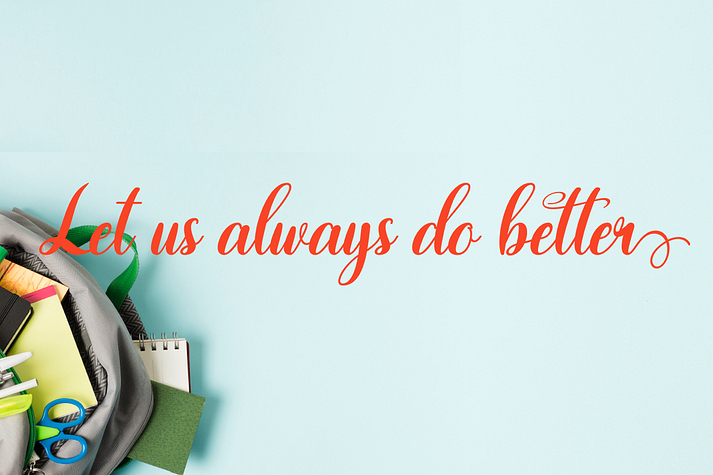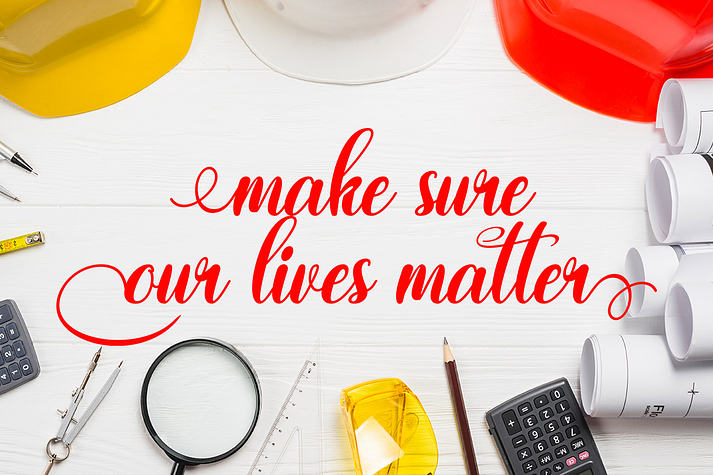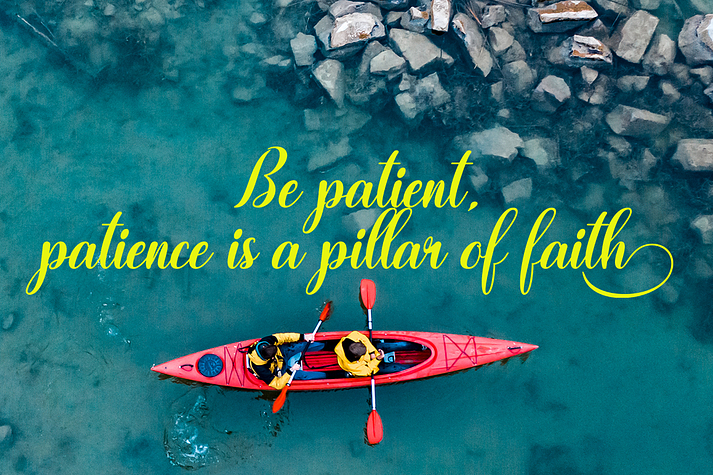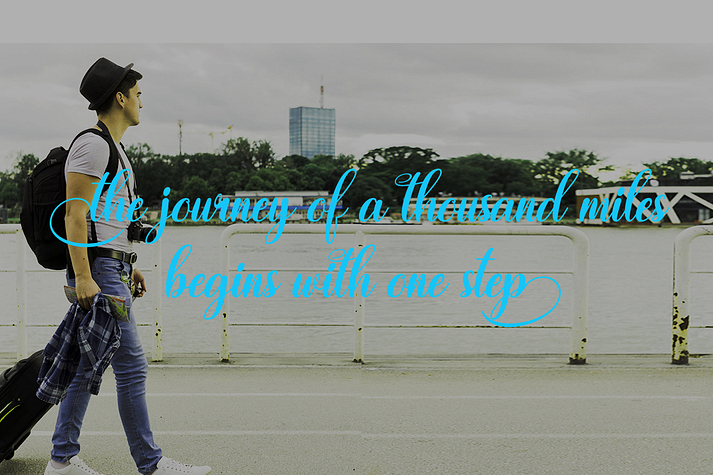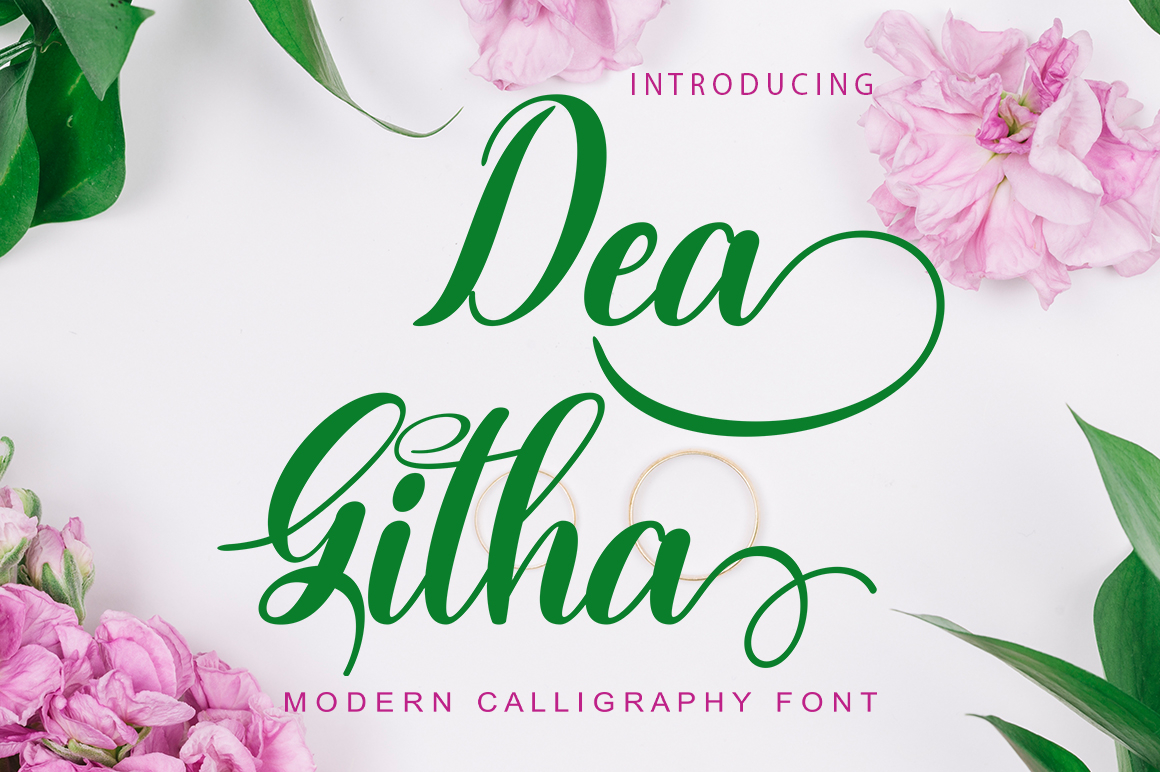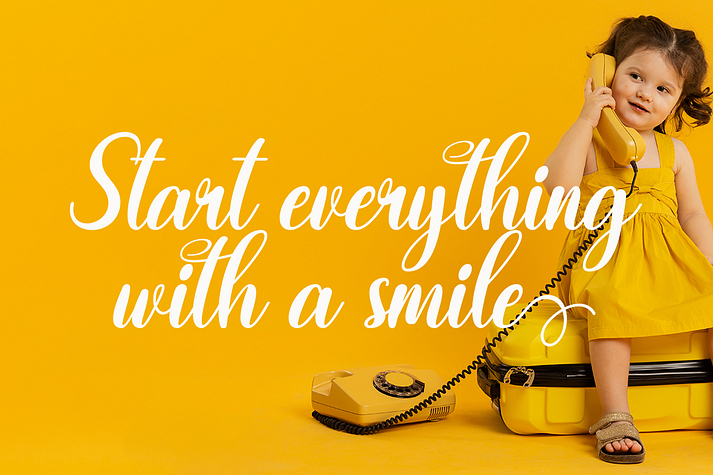
Dea Githa
Dea Githa is a brush script font family published by Gatype.
Dea Githa Script is modern script font, every single letters have been carefully crafted to make your text looks beautiful. With modern script style this font will perfect for many different project ex: quotes, blog header, poster, wedding, branding, logo, fashion, apparel, letter, invitation, stationery, etc.